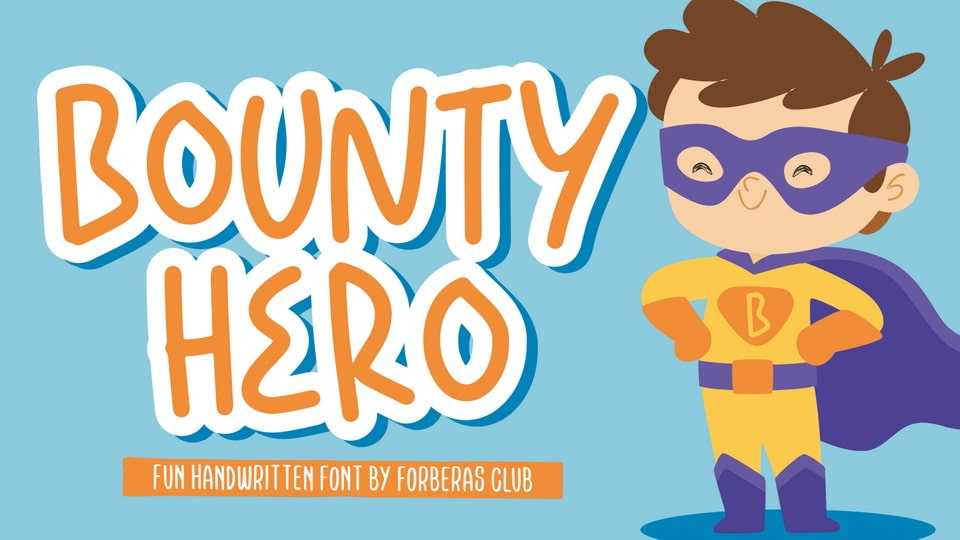
Download Bounty Hero font, a cute script typeface inspired by simple handwriting. Bounty Hero is especially designed for kids, cartoon, casual projects.